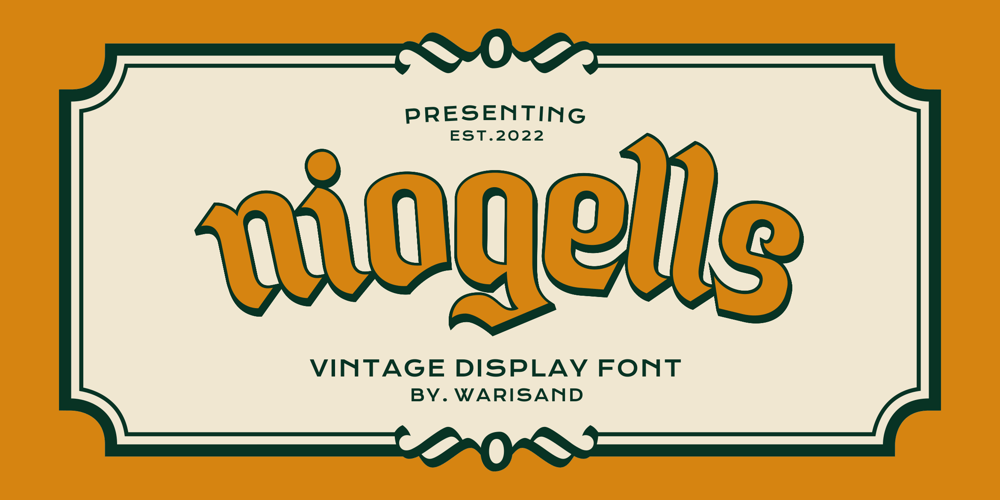
Niogells Font Family was designed by Widarti Sri Wahyuni and published by Warisand. Niogells contains 1 styles and family package options. Niogells is a Vintage Font inspired by beautiful vintage sign art and lettering. The font comes with unique alternate design characters to give your designs an elegant and artistic look. It is perfect for logo and packaging design, short phrases or headlines.